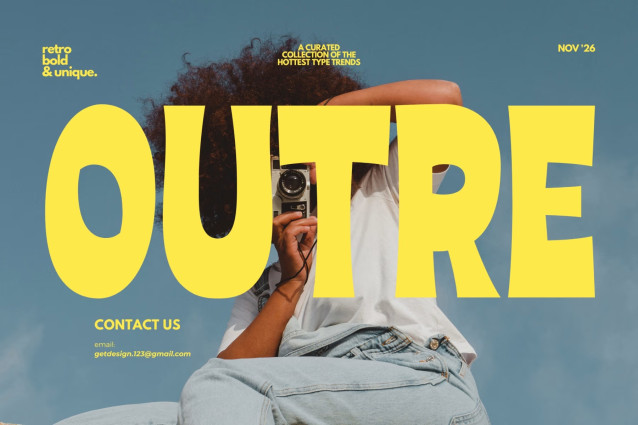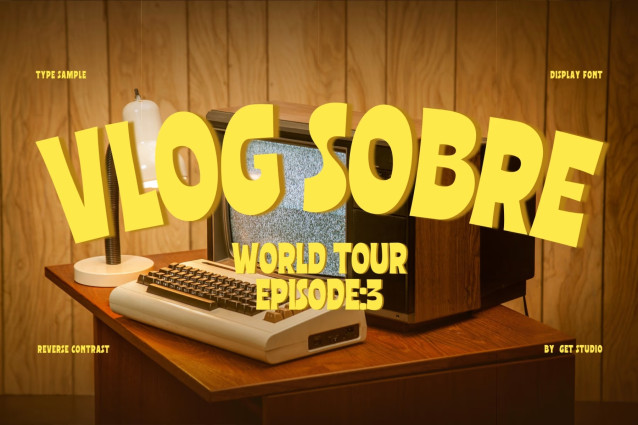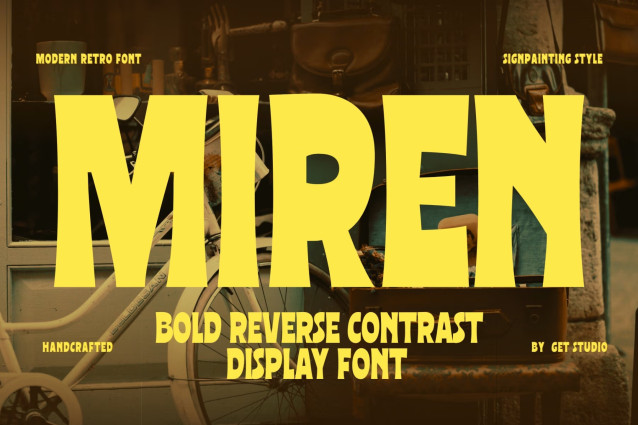
Miren is a bold display font with reverse contrast, exuding a strong retro vibe. Its unique style combines striking proportions with vintage charm, making it perfect for standout headlines, branding, and designs that demand attention.
Miren Font